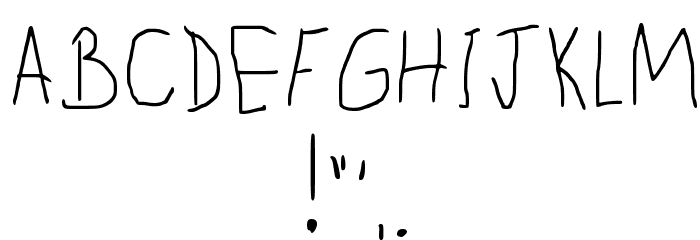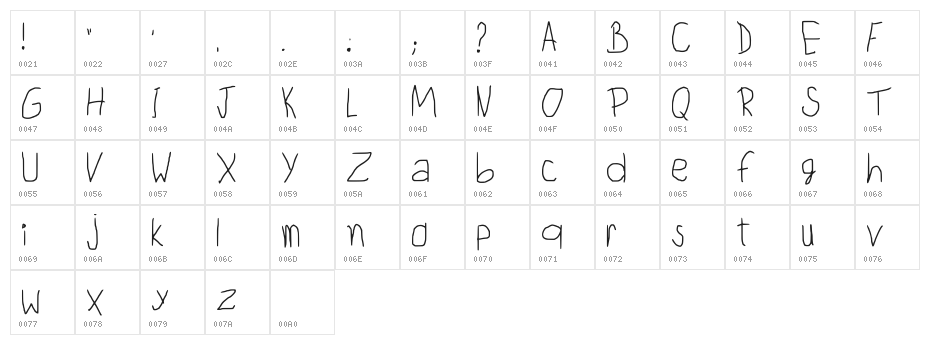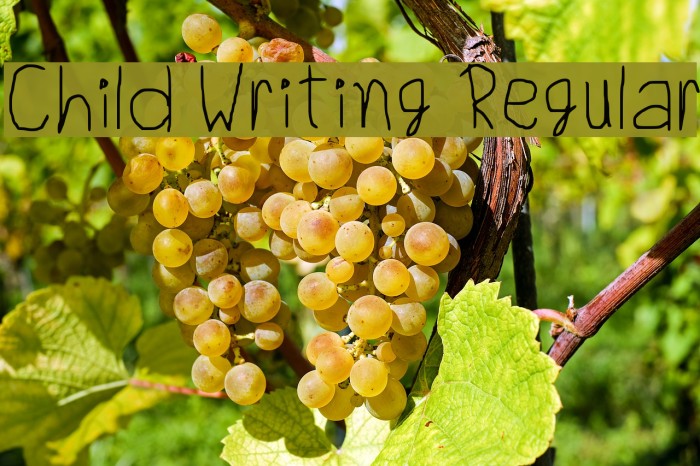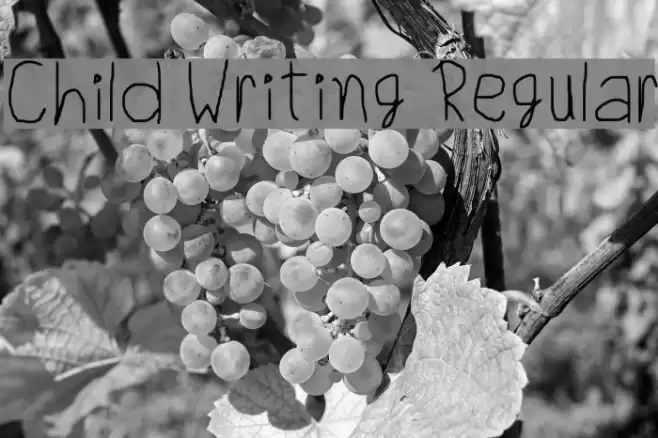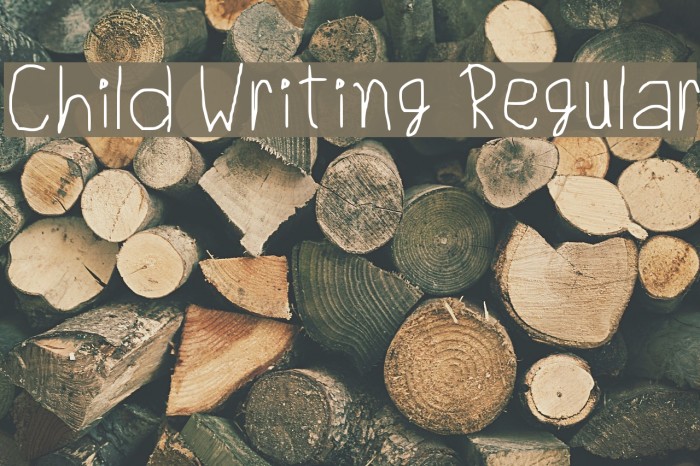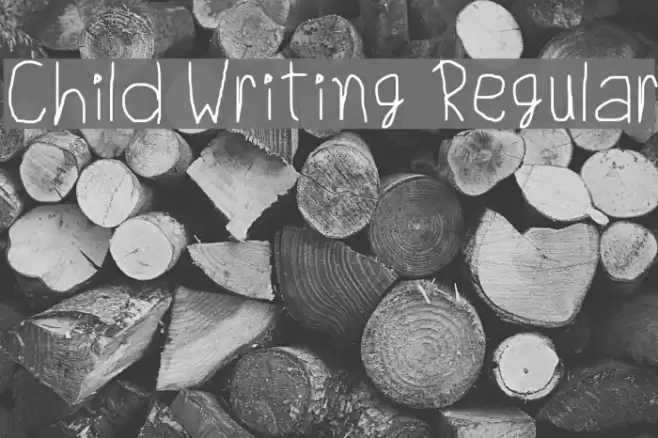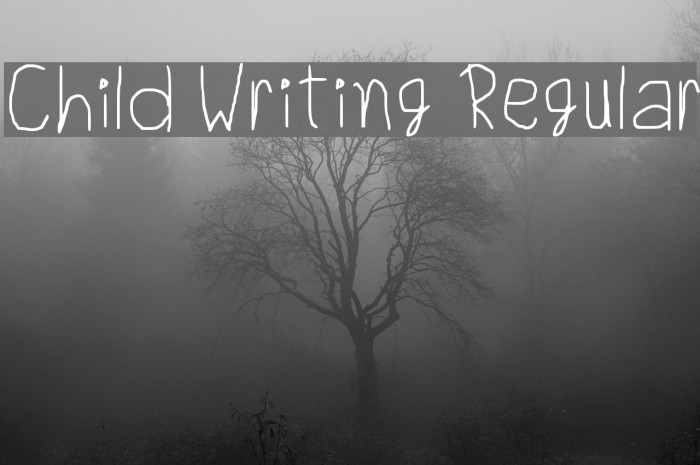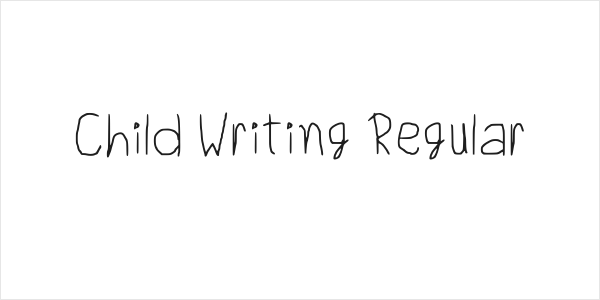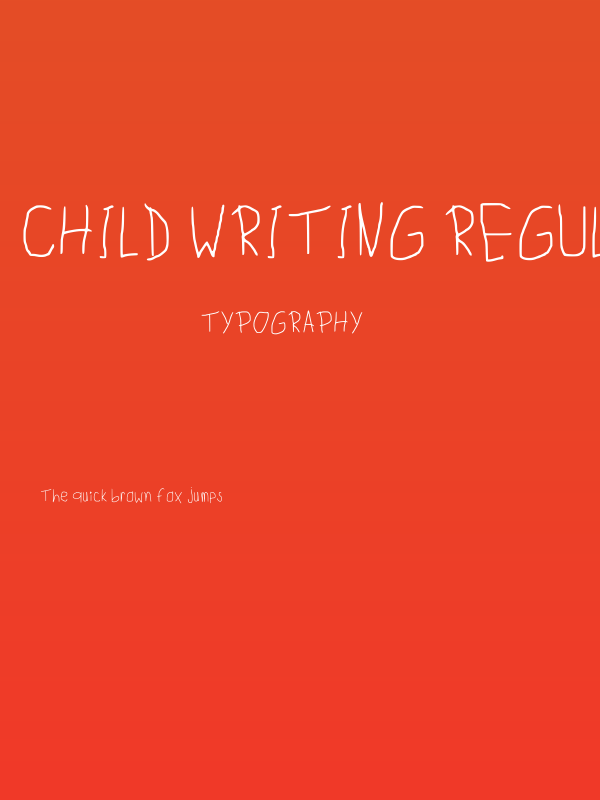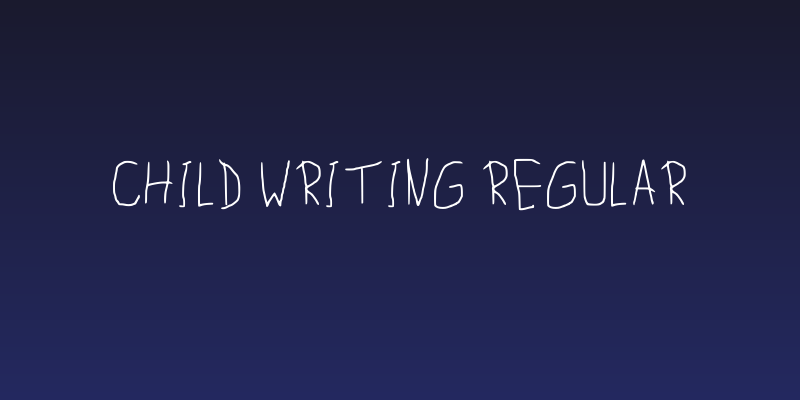
Child Writing Regular Font
Child Writing Regular Description
This playful and whimsical font mimics the natural, unrefined handwriting of a child. The letters are irregular and slightly uneven, giving it an authentic, hand-drawn appearance. The strokes are thin and vary slightly in thickness, adding to the casual and informal feel. The characters are spaced relatively close together, enhancing the handwritten effect. This font captures the innocence and creativity of childhood, making it ideal for projects that require a touch of youthful charm and simplicity.
| Proposed Projects | Ideal for children's books, educational materials, playful branding, and creative projects that require a youthful and informal touch. |